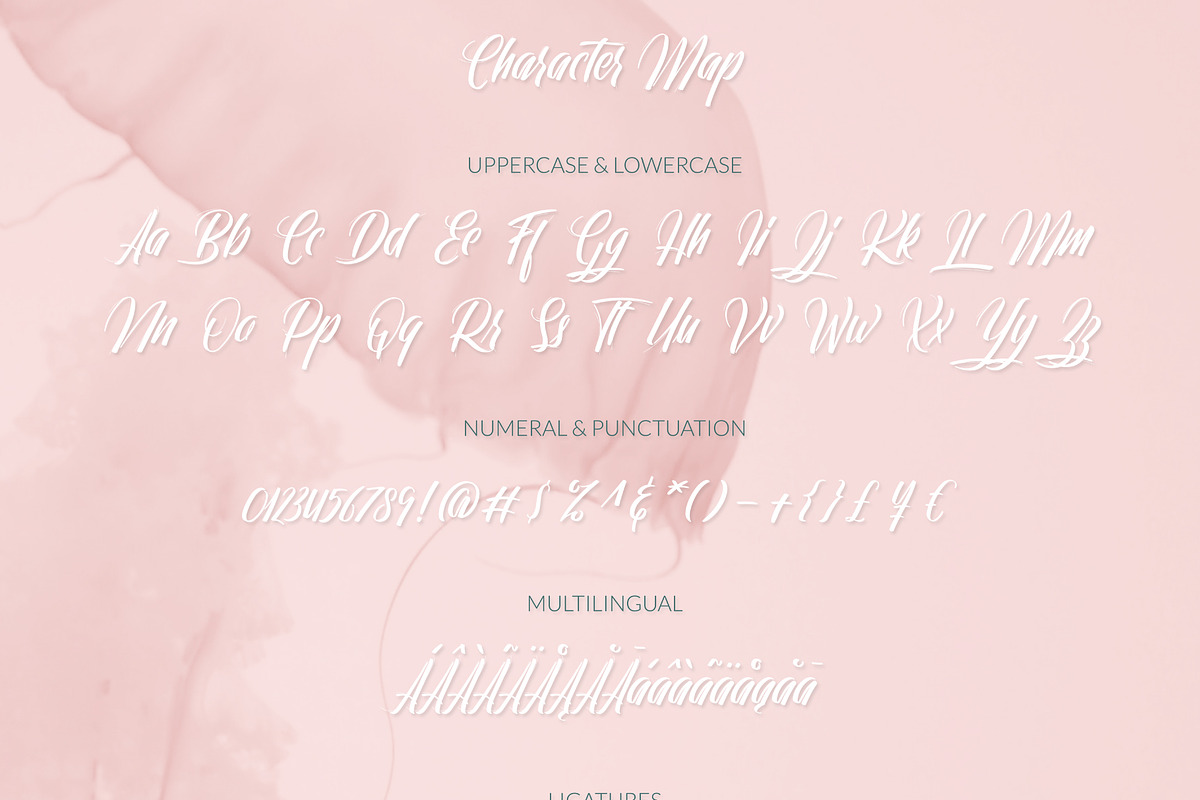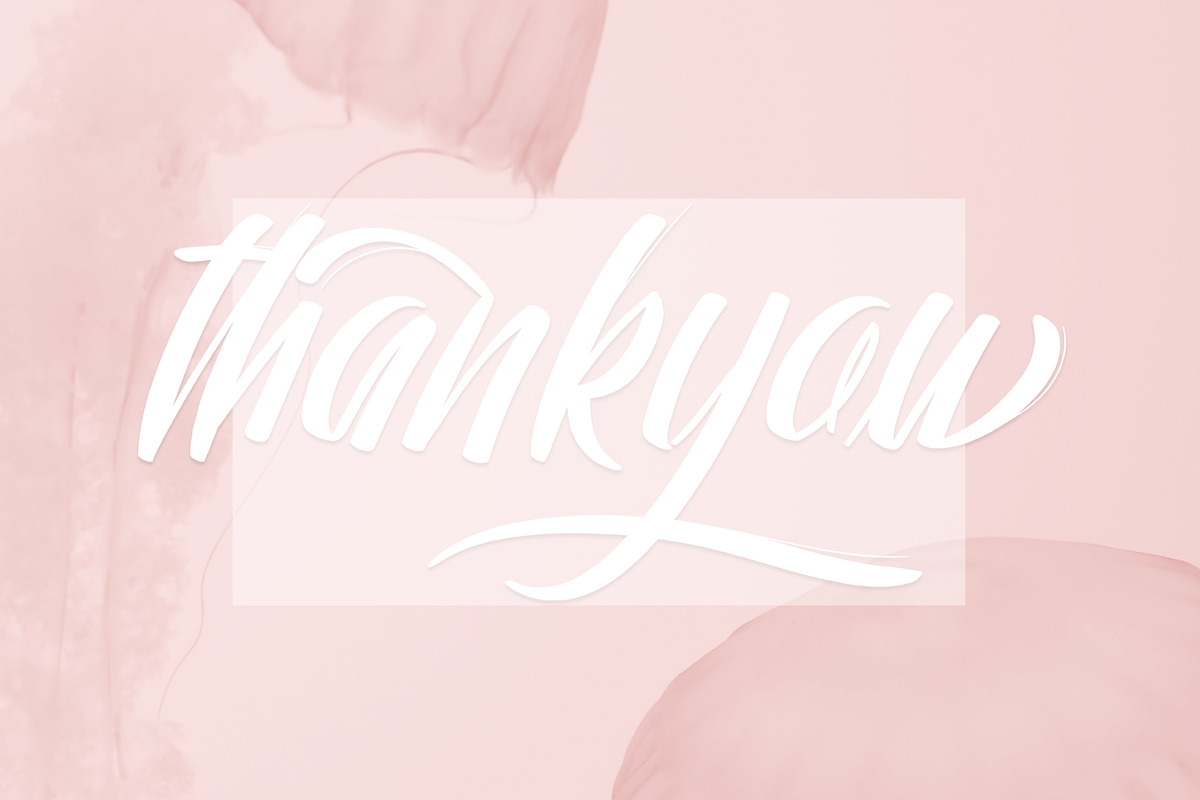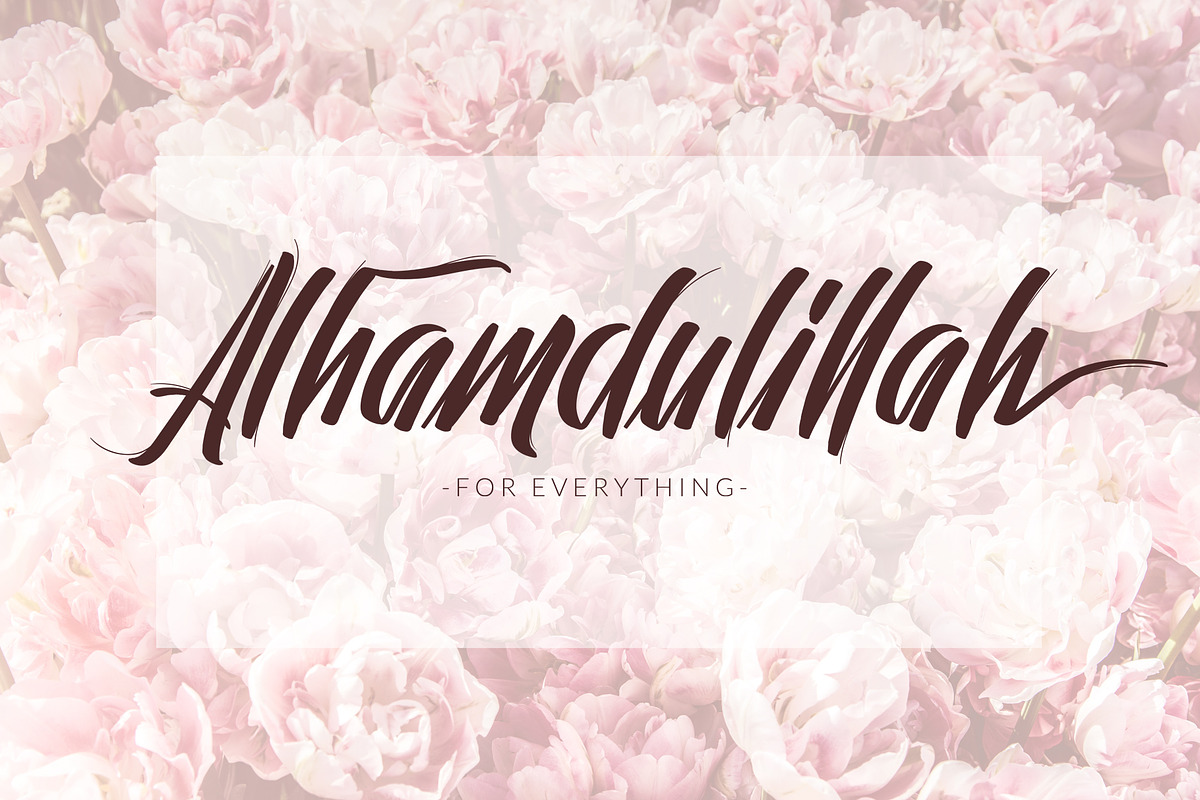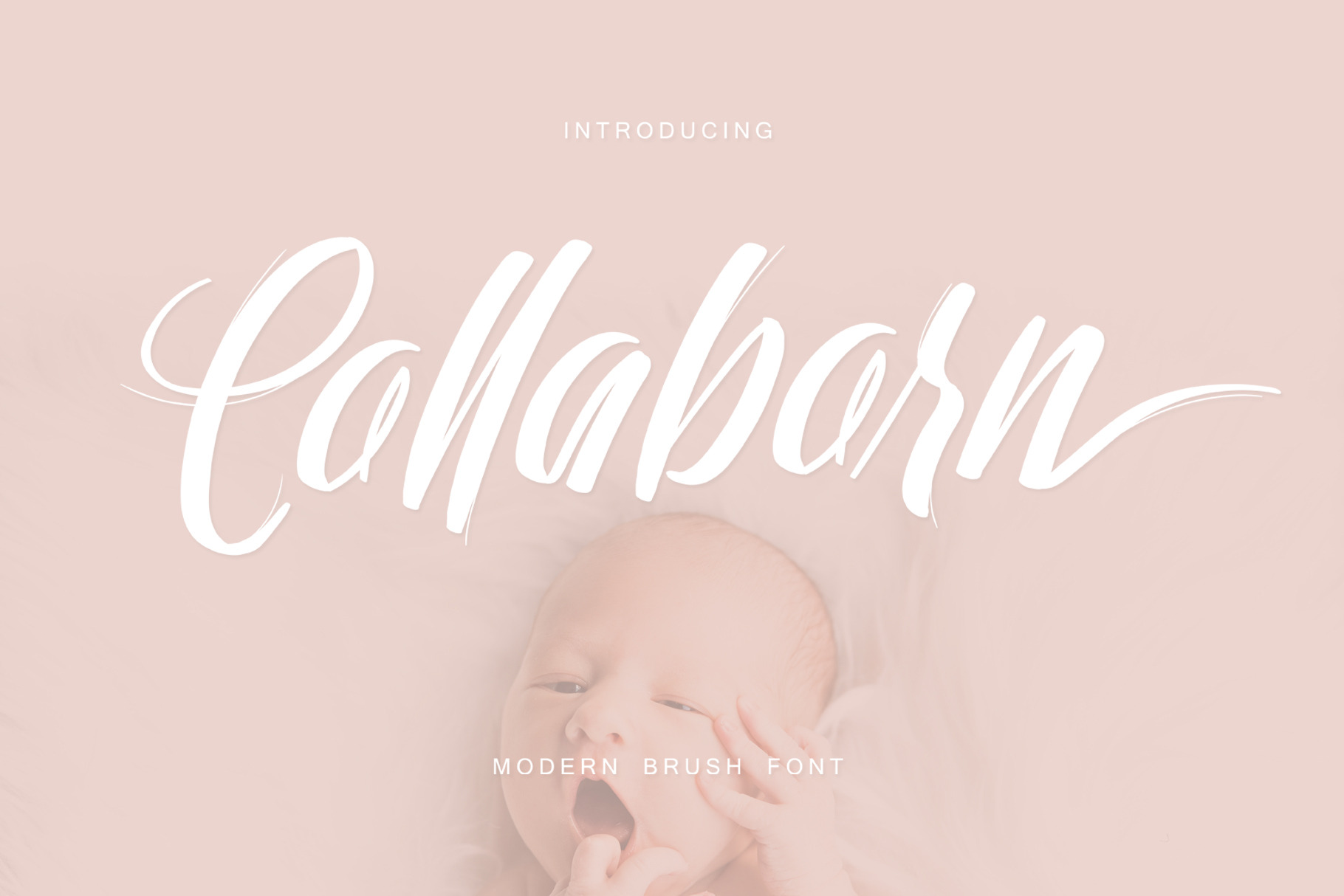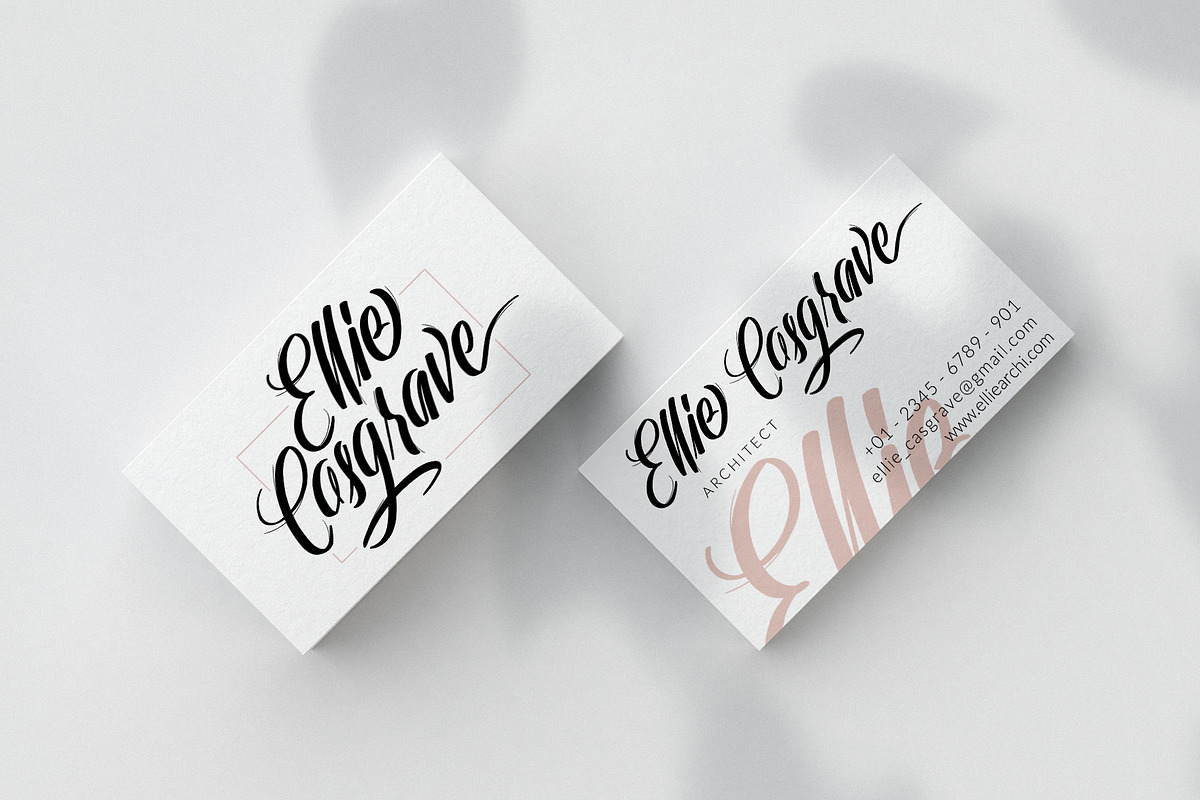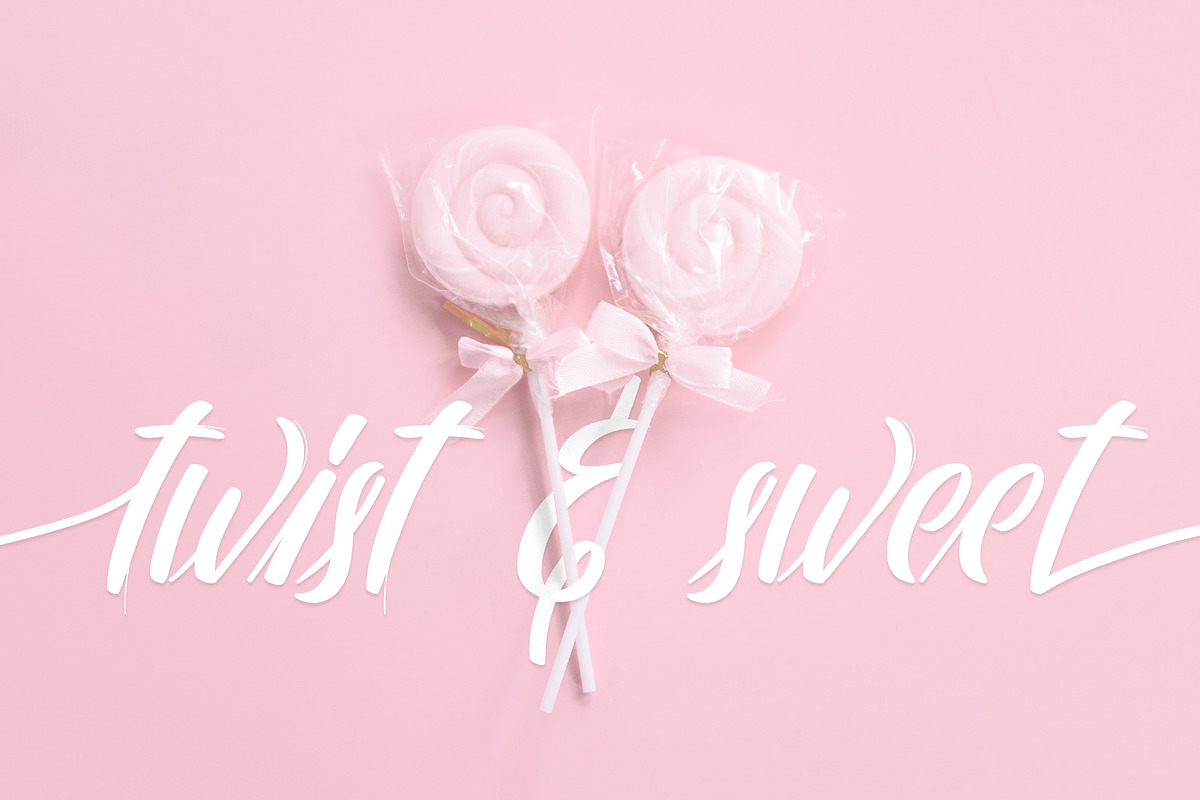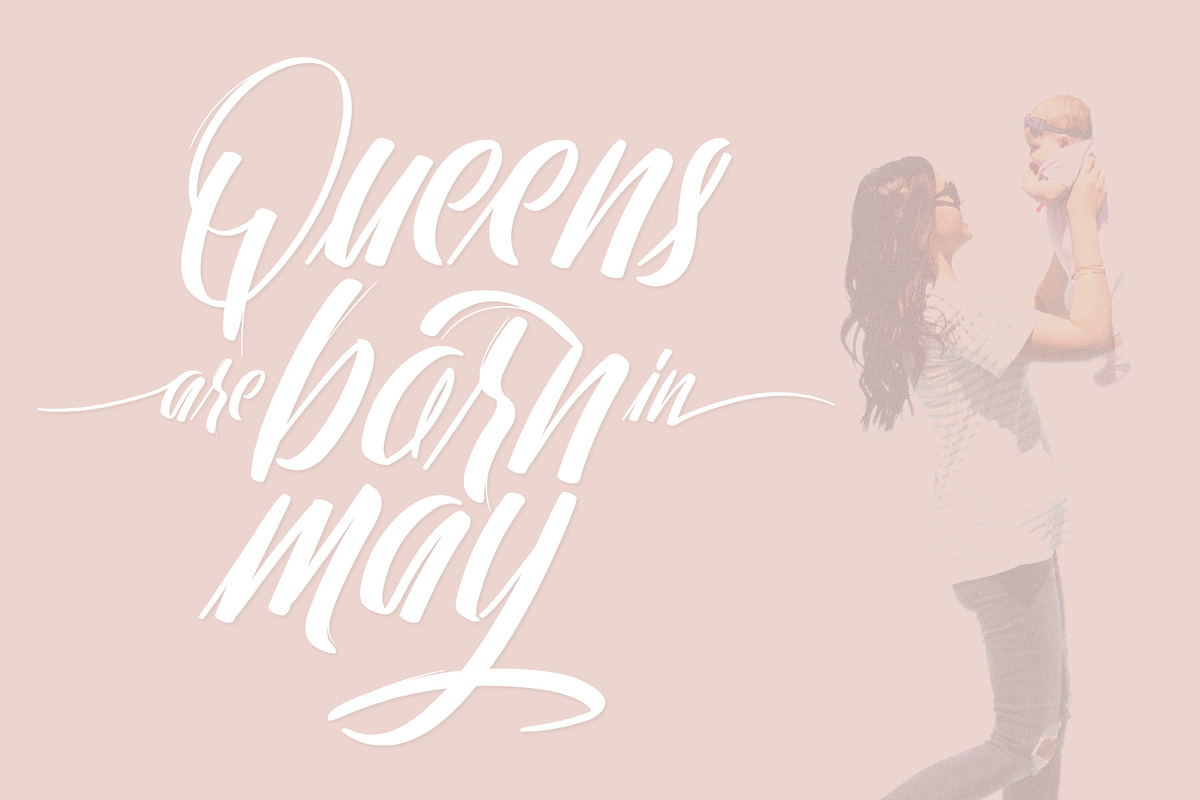
Collaborn - Modern Brush Fonts
Introducing Collaborn Script Font.
Collaborn Script is modern brush font script. Comes with many opentype feature, upper and lower case standard character, punctuation and numerals, multilingual characters, ligatures, stylistic alternates, beginning and ending, and many more glyph.